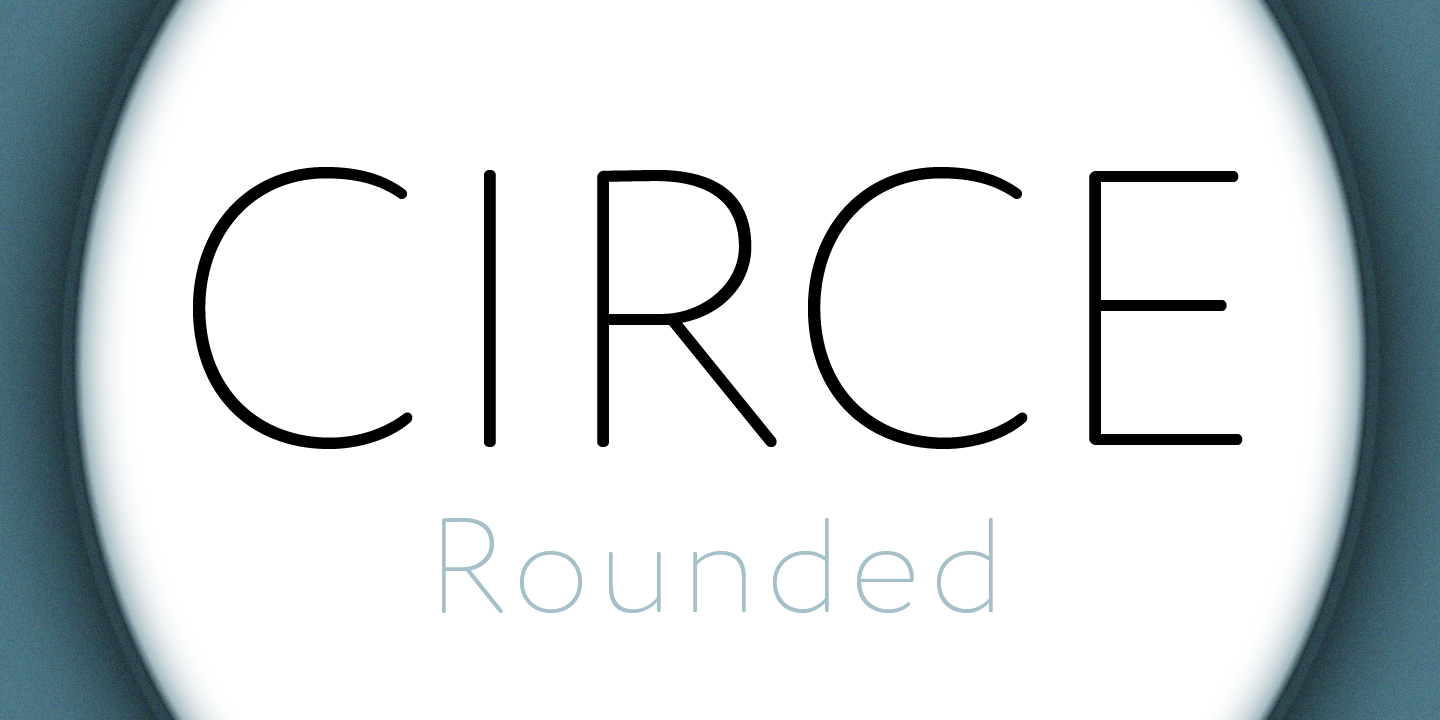
Circe Rounded Font is perfect for children's educational materials, friendly tech startups, approachable healthcare brands, family-oriented businesses, playful toy companies, welcoming service providers, community organizations, and warm user-friendly communications.
What makes Circe Rounded Font truly exciting is its enchanting ability to embody approachable sophistication and gentle elegance through beautifully rounded letterforms that create an immediate sense of warmth, friendliness, and magical accessibility. This captivating typeface features soft geometric characteristics with perfectly curved edges that instantly convey trustworthiness, approachability, and contemporary charm, making it the perfect choice for brands seeking to establish genuine human connections, create welcoming atmospheres, and communicate with audiences who value both modern design sophistication and heartfelt accessibility.
The Circe Rounded Font family encompasses thin, light, regular, medium, bold, and black weights, each available in upright and italic styles, along with extended character sets supporting international applications, providing designers with comprehensive tools for creating friendly brand experiences and approachable communications that resonate with diverse audiences seeking warmth and accessibility.
Family-focused brands and user-friendly organizations will discover that Circe Rounded Font Free Download transforms ordinary messaging into warm invitations that build trust and emotional connection with audiences of all ages. This versatile typeface excels in both intimate personal applications and large-scale public communications, maintaining its friendly character while ensuring optimal readability across all welcoming contexts.
The font's thoughtfully rounded construction demonstrates exceptional attention to both visual warmth and functional excellence, with carefully softened proportions that ensure approachable presence while maintaining superior legibility in diverse communication environments. From children's book covers to healthcare signage, this friendly typeface maintains its welcoming appeal while providing the reliability needed for comprehensive community-focused applications. Approachable brands appreciate how this font effortlessly communicates warmth, accessibility, and distinguished American friendly design excellence through superior rounded typography.